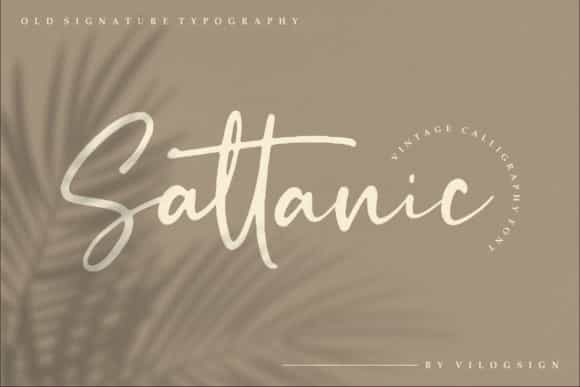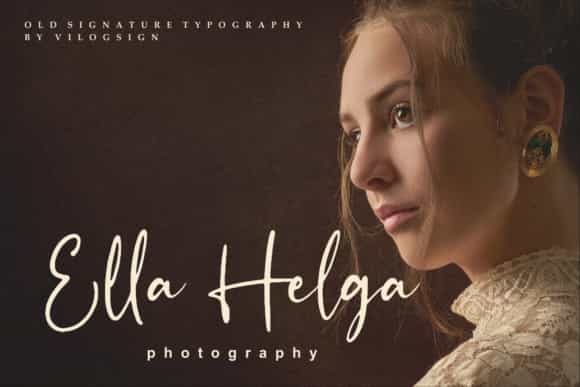
Discover Sattanic Font, part of the Brush Calligraphy collection—a versatile and unique font perfect for adding a personal touch to your projects. Download it for free and enjoy crafting designs with style, from invitations to social media posts. This font is available exclusively for personal use, giving you the freedom to create without limits. Unlock your creativity with Sattanic Font today!
Introducing Sattanic Font, a handwriting style that is very simple. This font provides a very special look and is highly bonded to your design in the classic or modern style. Sattanic Font is the best font for your projects in logos & branding, print media, social media posts, wedding invitations, watermarks or works that need hand styles with a unique style.